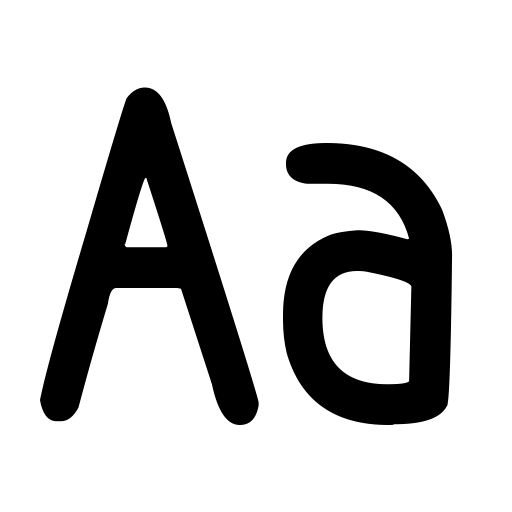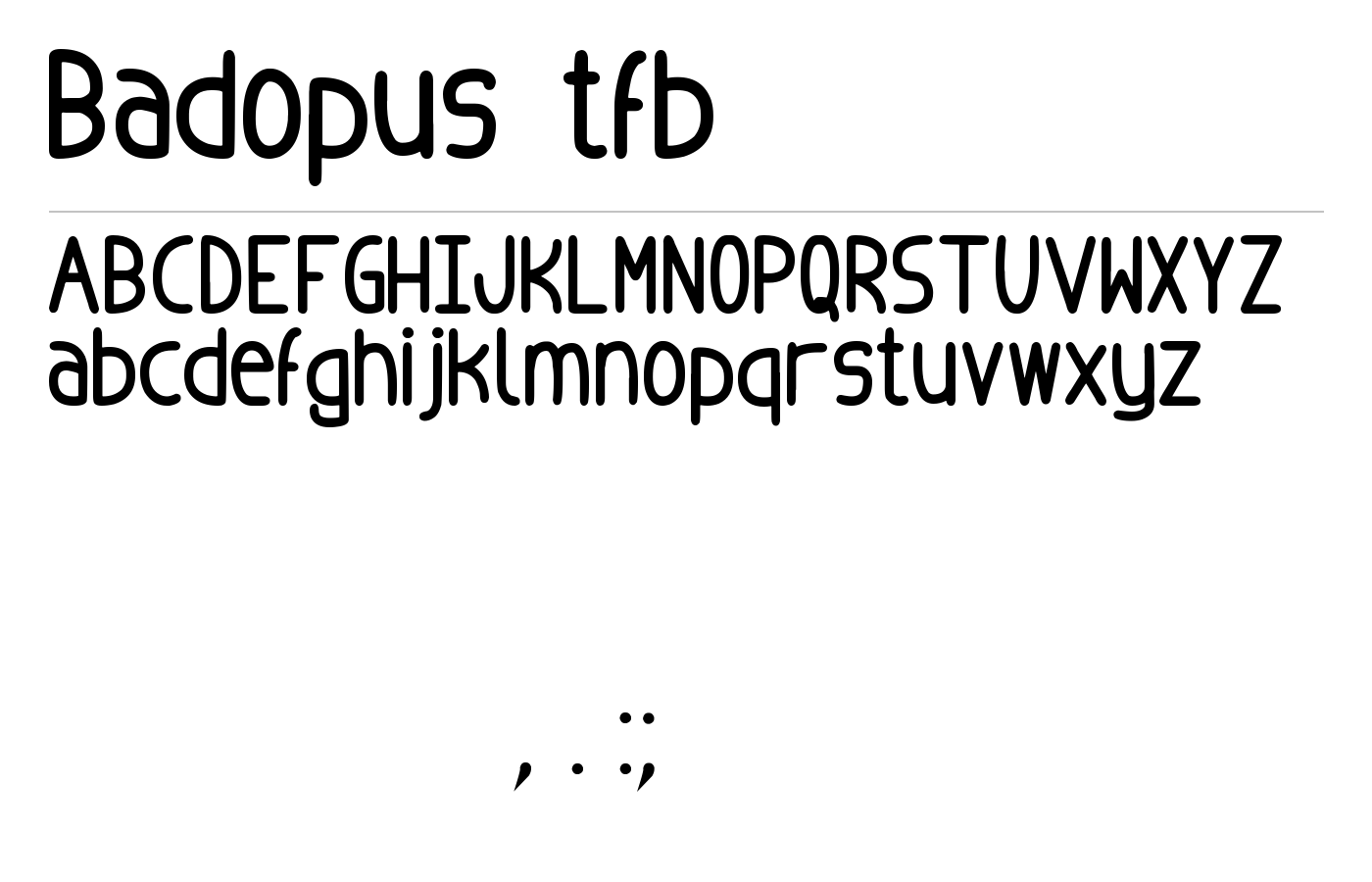
Badopus tfb is a playful, casual sans serif font with a hand-drawn feel, featuring rounded, slightly irregular strokes that give it a friendly and approachable character. Its moderate weight and open letterforms with a medium x-height make it easy to read, ideal for informal branding, children's materials, or creative projects that seek a warm, personal touch. This font works well in headlines and display settings where a fun, relaxed vibe is desired.
Badopus tfb Font
About Badopus tfb Font
| Font family | Badopus tfb Font |
| Designer | kaiser zhar khan |